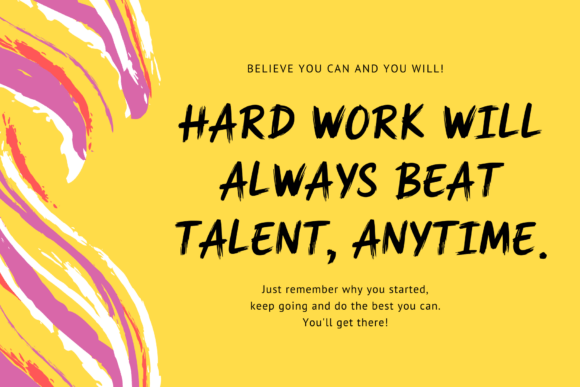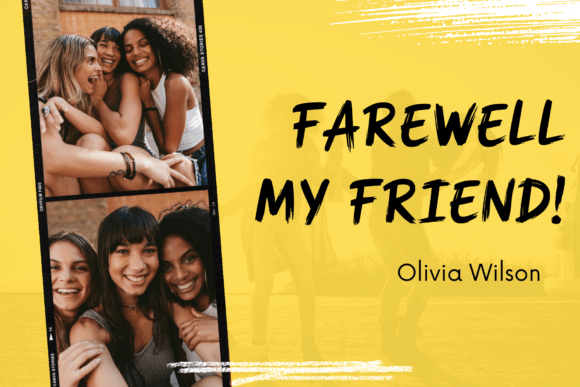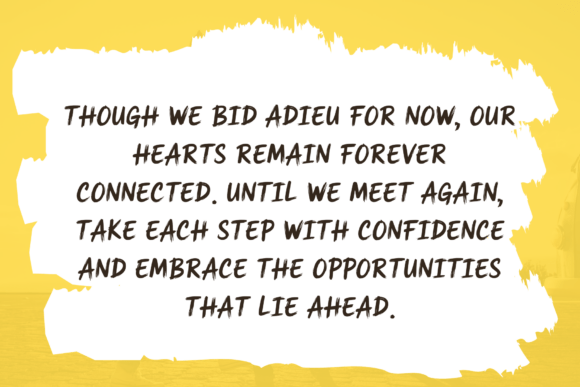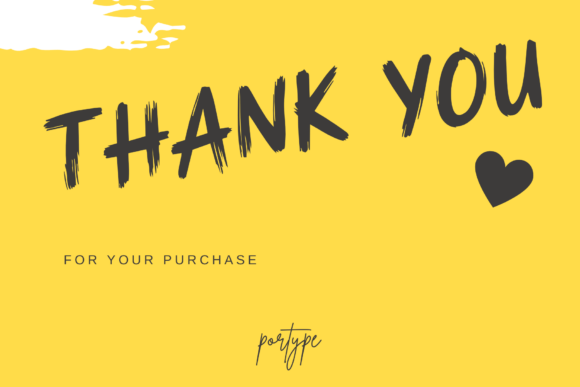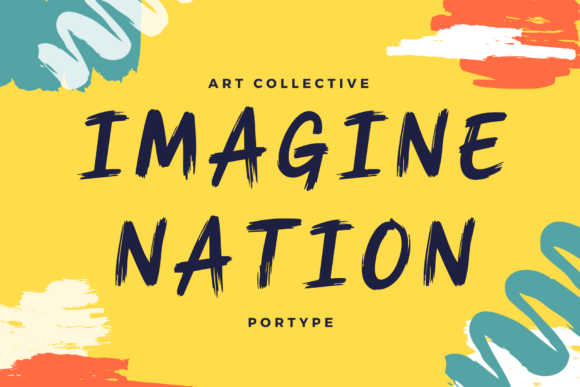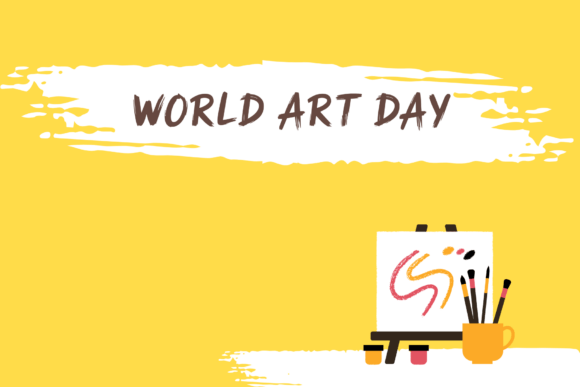
Introduction to Porthub Font
Porthub is a bold brush font designed for those who dare to express their creativity without limits.
With rough, expressive, and character-filled strokes, this font delivers an authentic hand-painted look Perfect for posters, logos, apparel, branding, and any creative project that needs a strong and fearless touch.